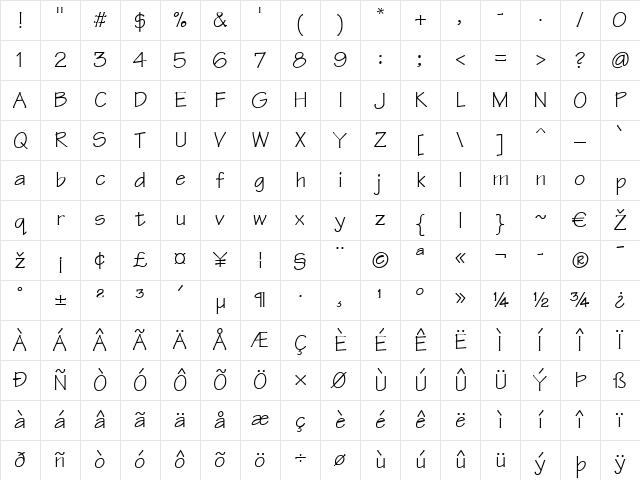
Tekton LT Regular Free Font
Tekton LT Regular
Design Context for Tekton LT
Tekton LT is a composed and adaptable typeface that performs quietly and consistently across a wide range of design contexts. Its slender proportions lend an understated elegance to any composition.